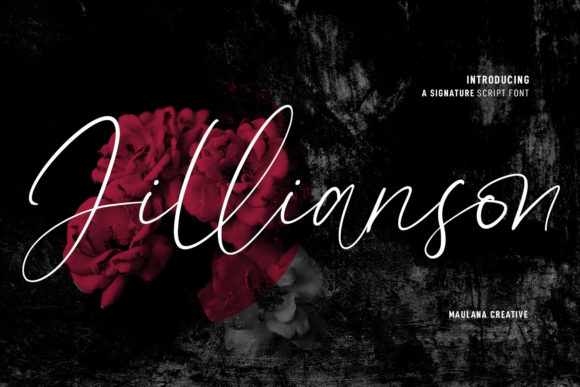
Prepare your taste buds and eyes for a delectable journey with Jillianson Font, the ultimate font for food websites. Feast your senses on this thin lettered and delicate script font that will tantalize your visual senses.
Picture this: a mouthwatering menu designed with Jillianson Font, where each letter dances gracefully, inviting your customers to indulge in a culinary adventure. The delicate strokes of this font will add a touch of elegance and sophistication to your website, making it a true feast for the eyes.
Jillianson Font is not just a font; it's an experience, a journey through the world of flavors and aromas. Let your customers embark on a culinary adventure as they navigate your website, with Jillianson Font as their guide. Each letter will whisper tales of tantalizing dishes, creating a sensory experience that will keep them coming back for more.
Elevate your food website beyond the ordinary and embrace the power of Jillianson Font. Indulge in the beauty of its flowing characters, and watch as your website transforms into a masterpiece of culinary art. Jillianson Font is the secret ingredient that will set your website apart, making it the talk of the town.